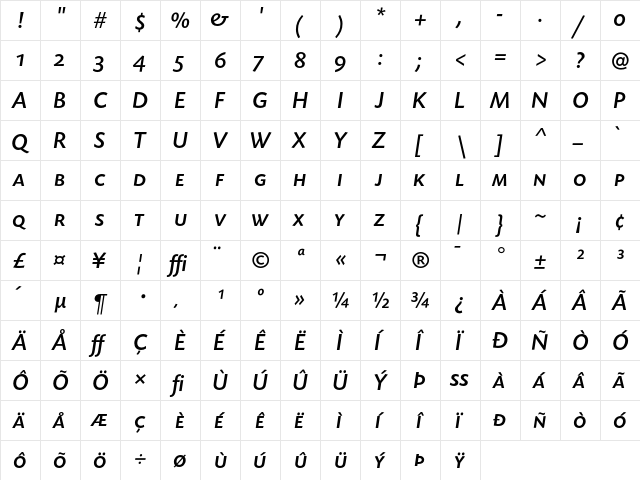
TodaySB-CapMedIta Regular
Design Context for TodaySB-CapMedIta Typeface
TodaySB-CapMedIta takes a measured approach to typography — its balanced proportions and neutral character make it a reliable workhorse for both digital and print work.